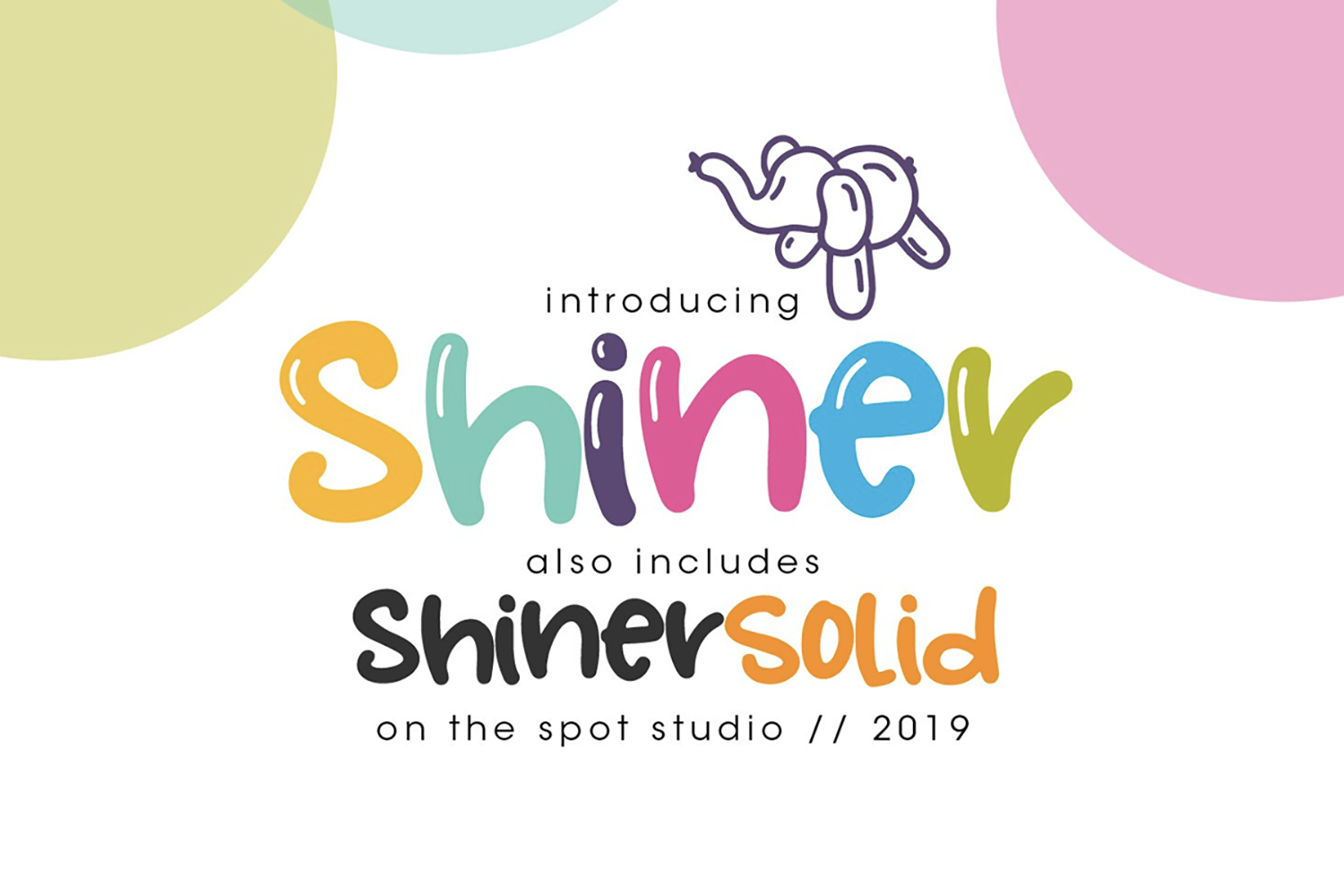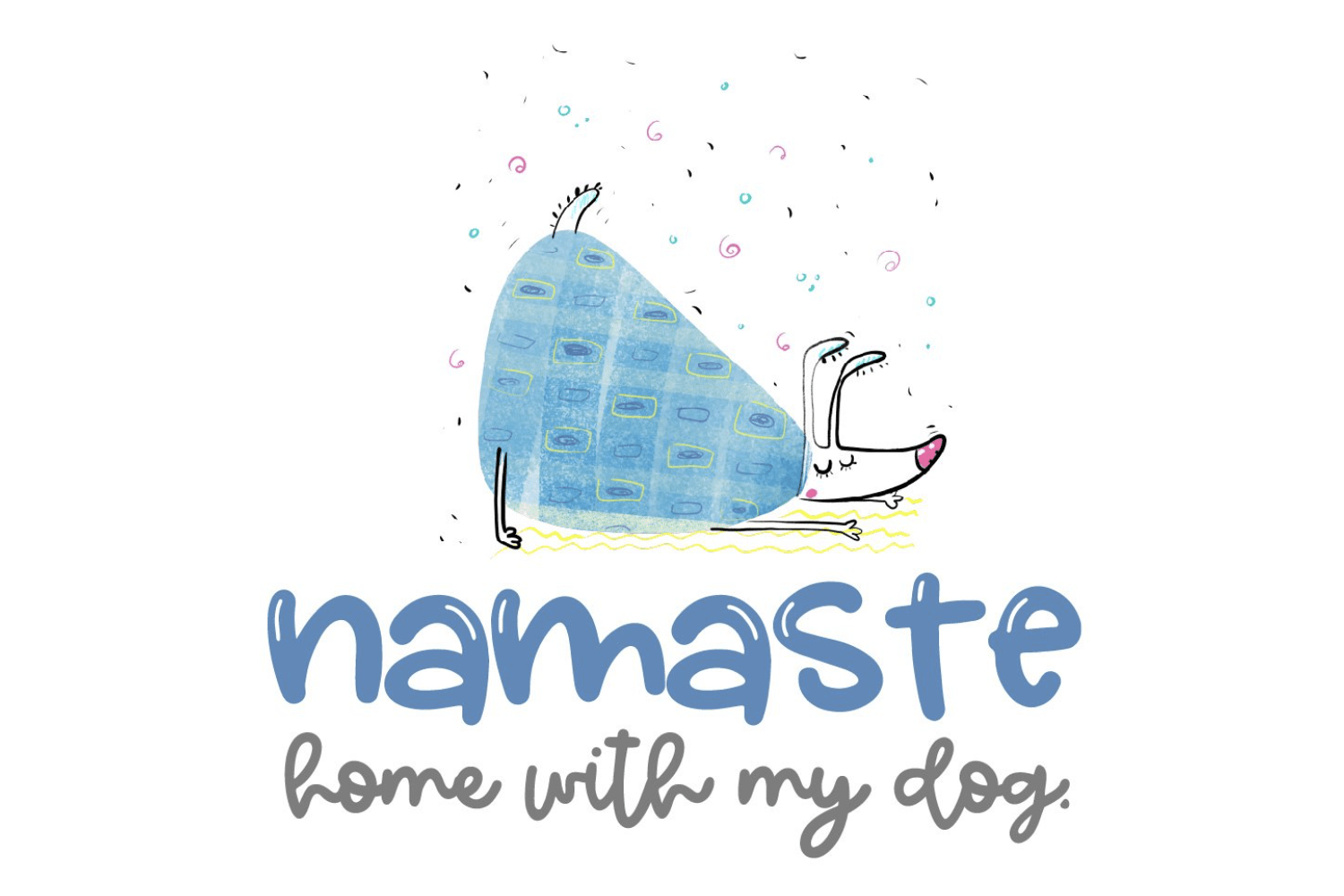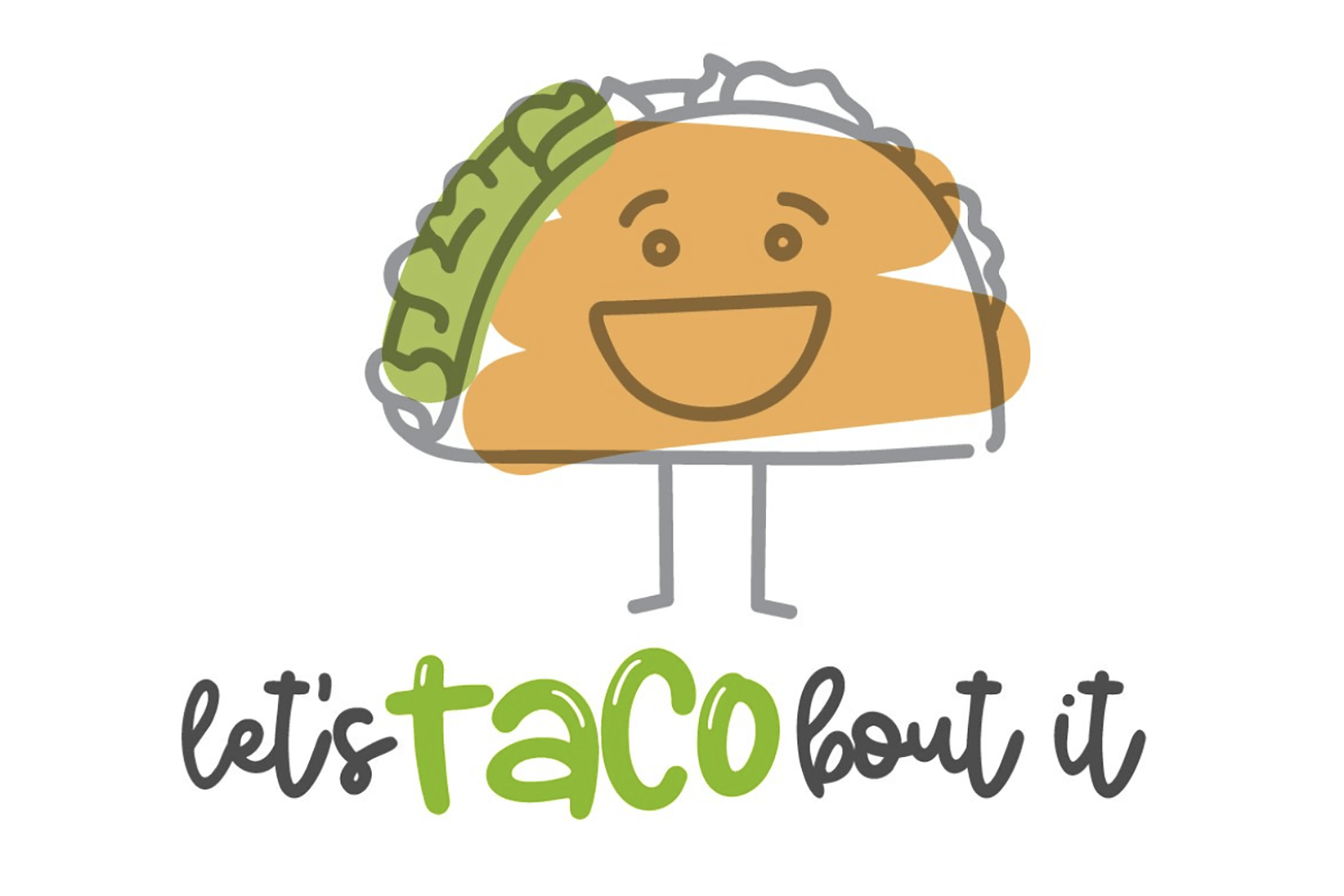
Shiner
Shiner is my newest "shiny" font! Following in the footsteps of Oaker, Shiner is a quirkier, lower and uppercase font with both shine lines AND a solid version. A new favorite!